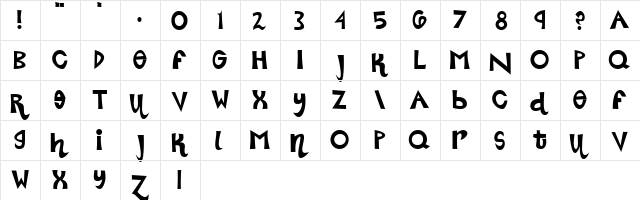
Roller Coaster Regular Font Preview
Roller Coaster Regular
Design Context for Roller Coaster Typeface
Roller Coaster is a composed and adaptable typeface that performs quietly and consistently across a wide range of design contexts.